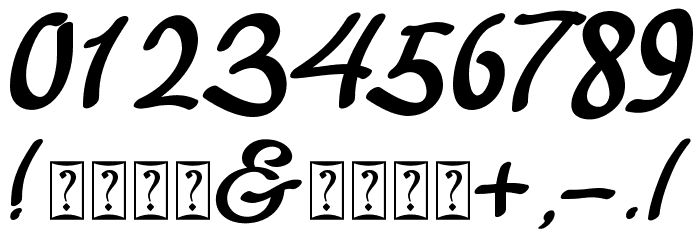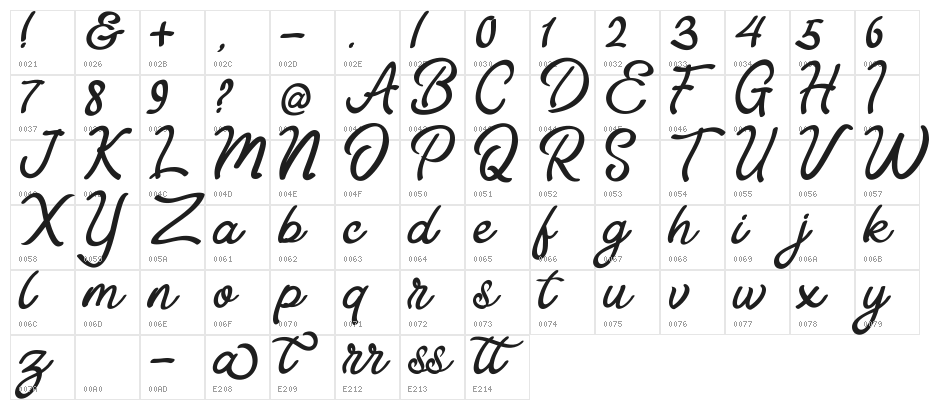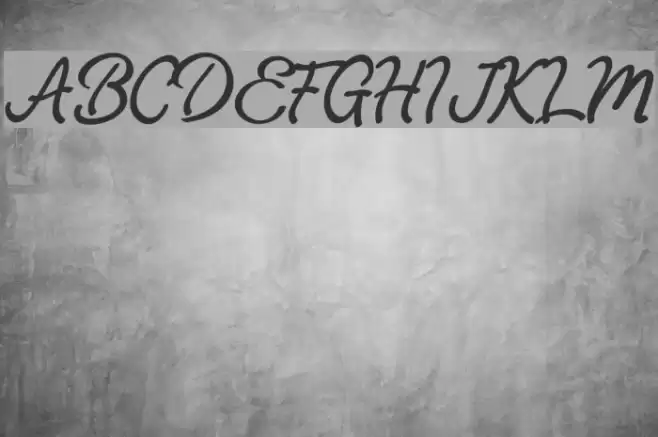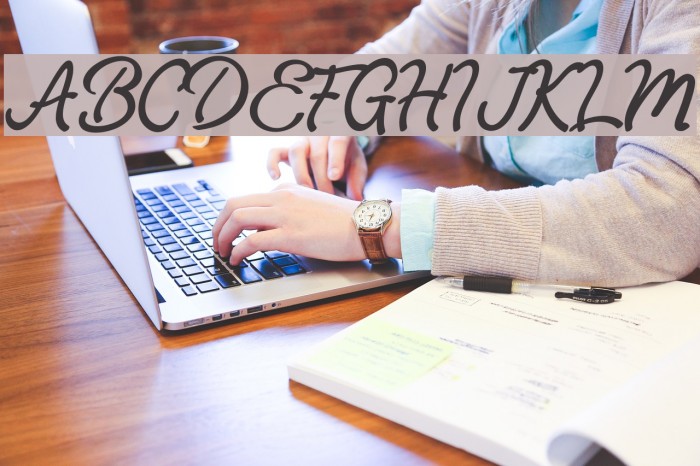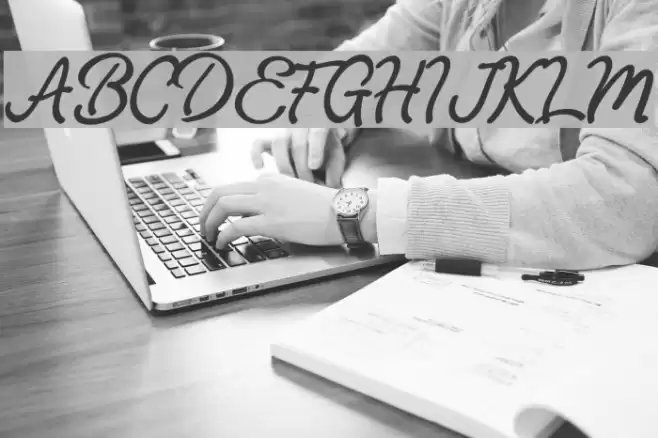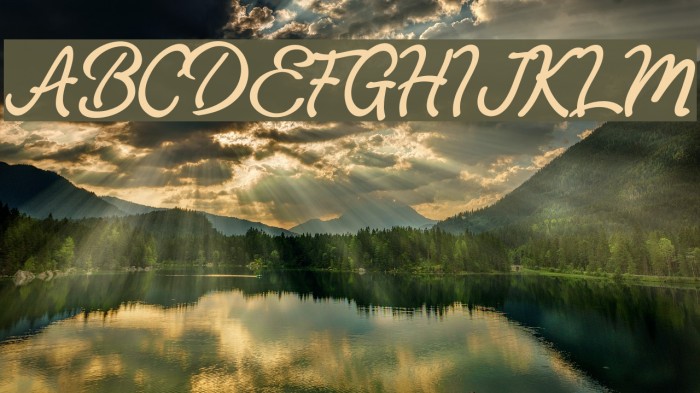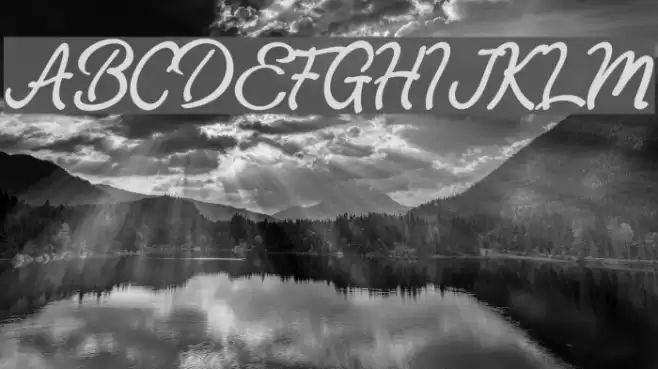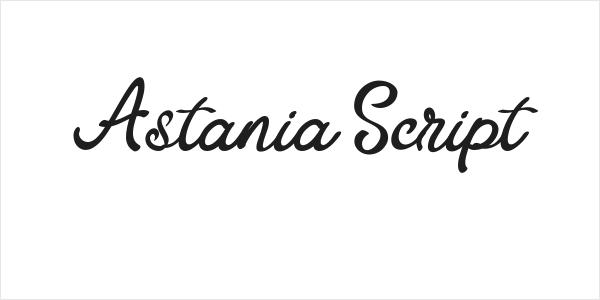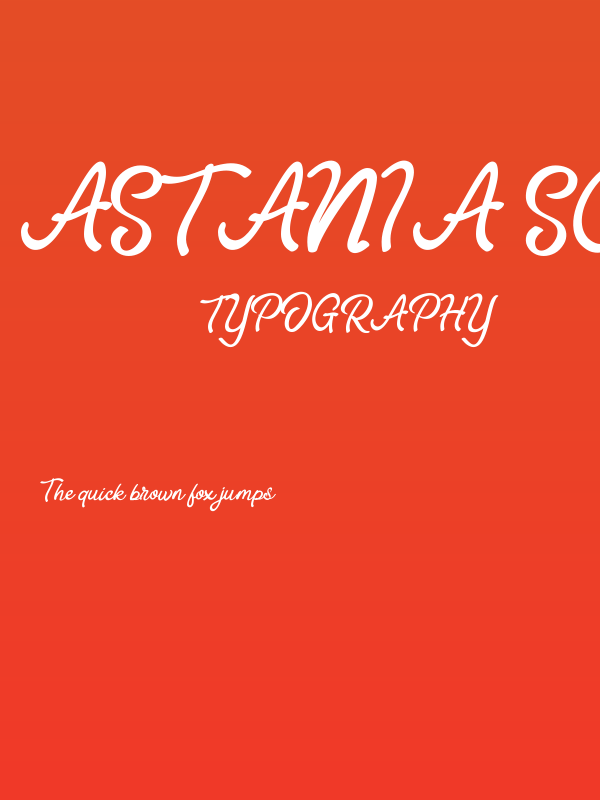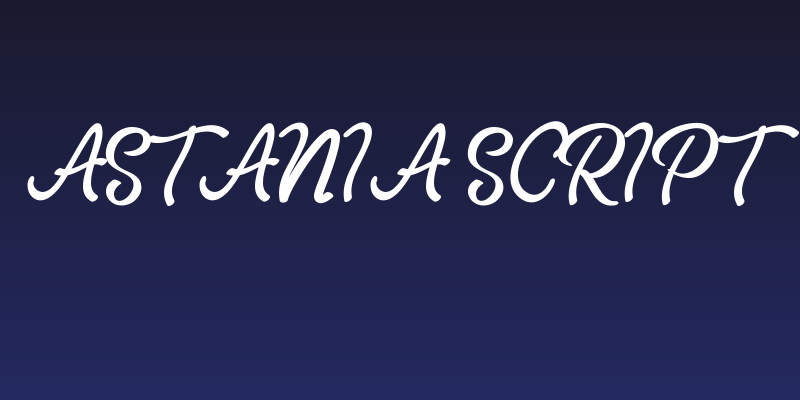
Astania Script Font
Astania Script Description
This script font exudes elegance and fluidity, characterized by its smooth, flowing strokes and cursive style. The uppercase letters are bold and slightly slanted, giving a sense of movement and grace. The lowercase letters maintain a consistent flow, with some letters featuring loops and swashes that enhance the overall aesthetic. The numerals are clear and legible, matching the style of the alphabet with a touch of flair. Special characters like the ampersand and exclamation mark are artistically crafted, adding to the font's decorative appeal. This font is perfect for projects that require a touch of sophistication and artistic flair.
Overall StyleElegant, Decorative
Use CaseLogos, Invitations, Decorative text
Proposed ProjectsIdeal for wedding invitations, greeting cards, branding, and elegant signage.